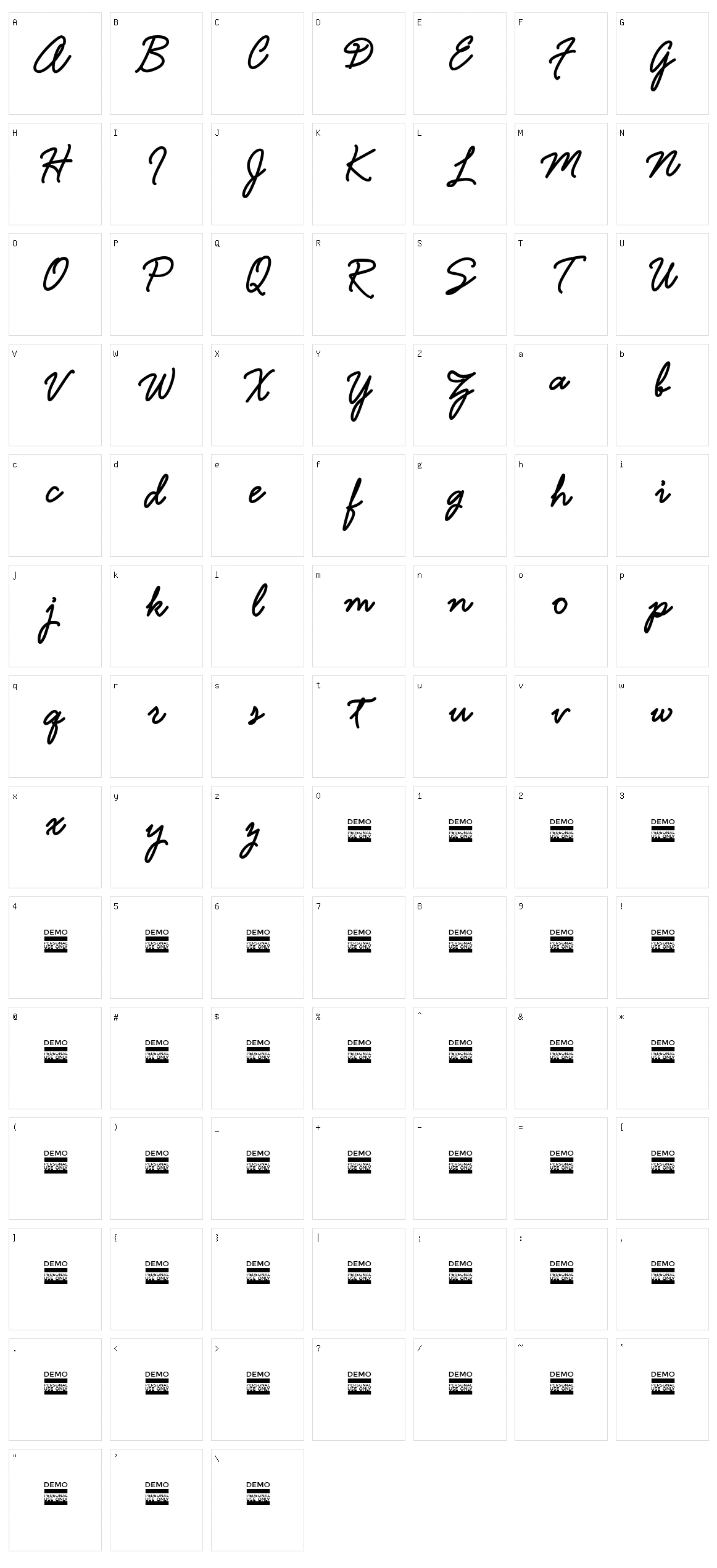
Hamline
The free font Hamline is carefully designed by Typia Nesia, showcasing a thoughtful balance of creativity and usability and falls under the Script font style. When you download the ZIP file, it contains only 21.37 KB of font files, making it lightweight and quick to download. Please review the license details below to understand permitted usage and distribution rights. If license information is not available, we recommend using this font for personal projects only or contacting the author directly for commercial usage permissions.